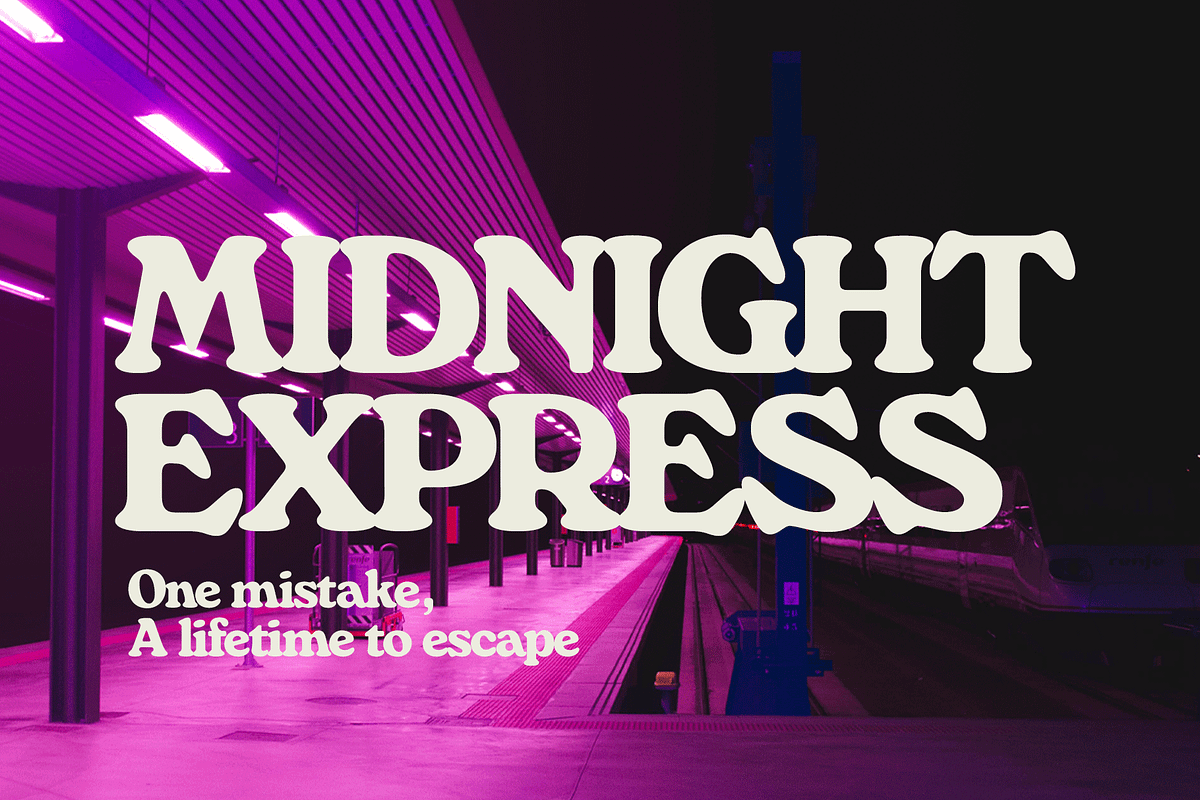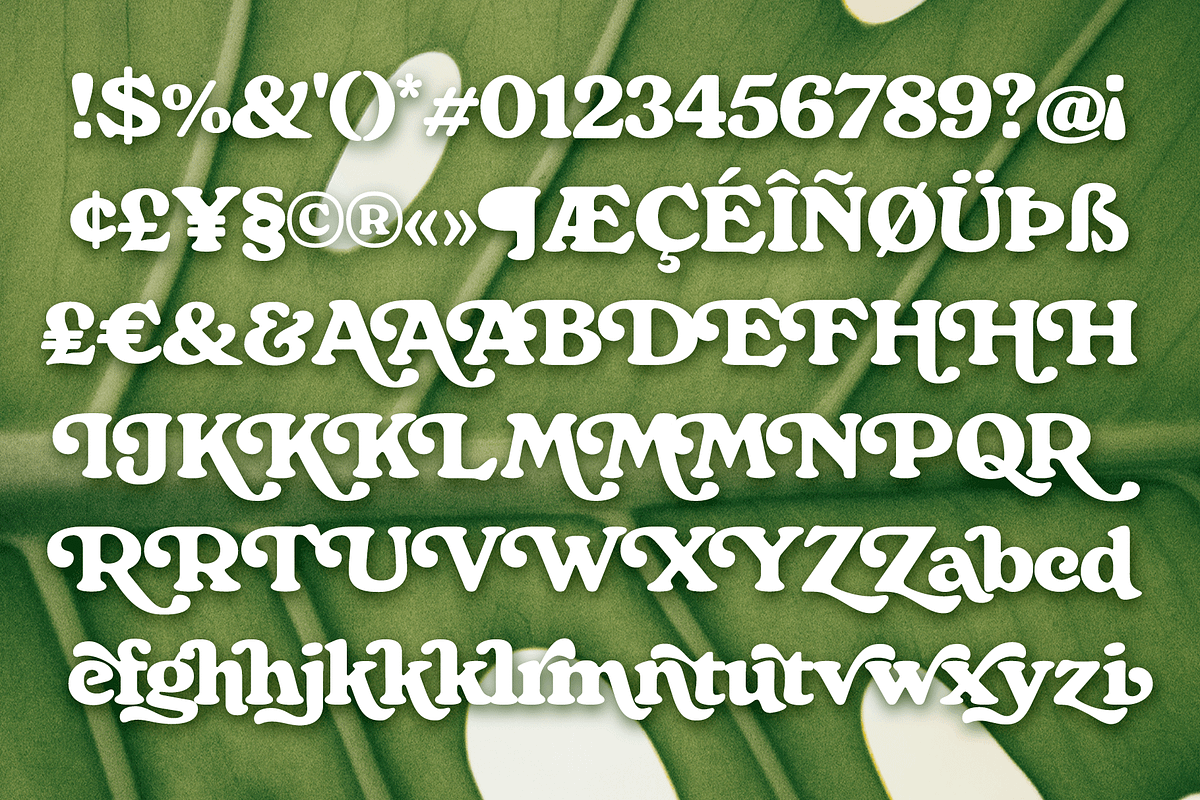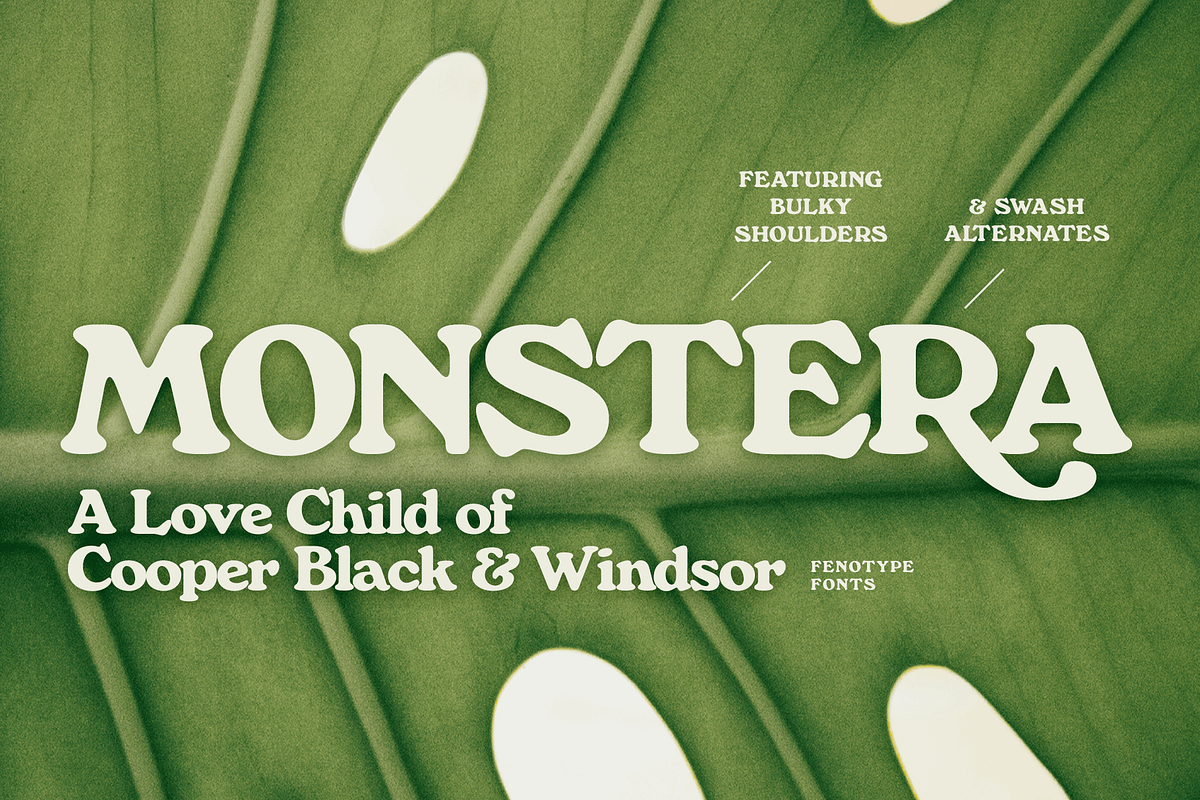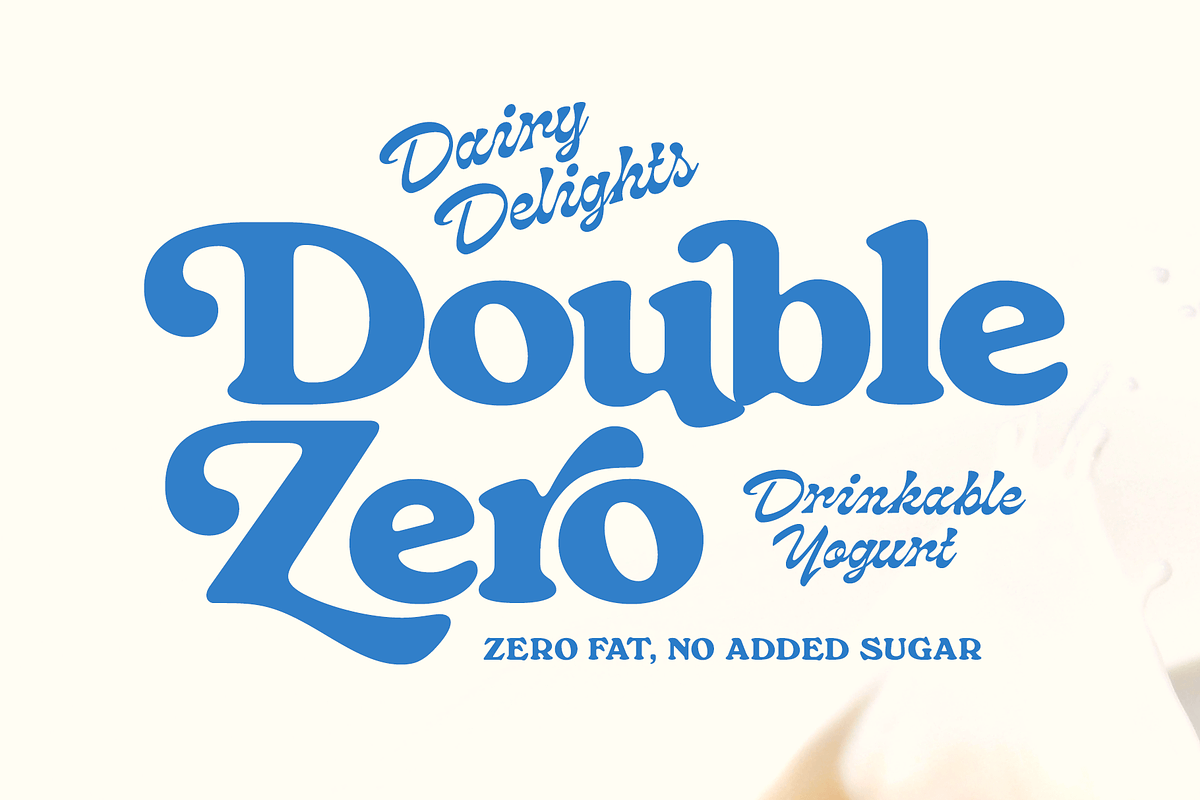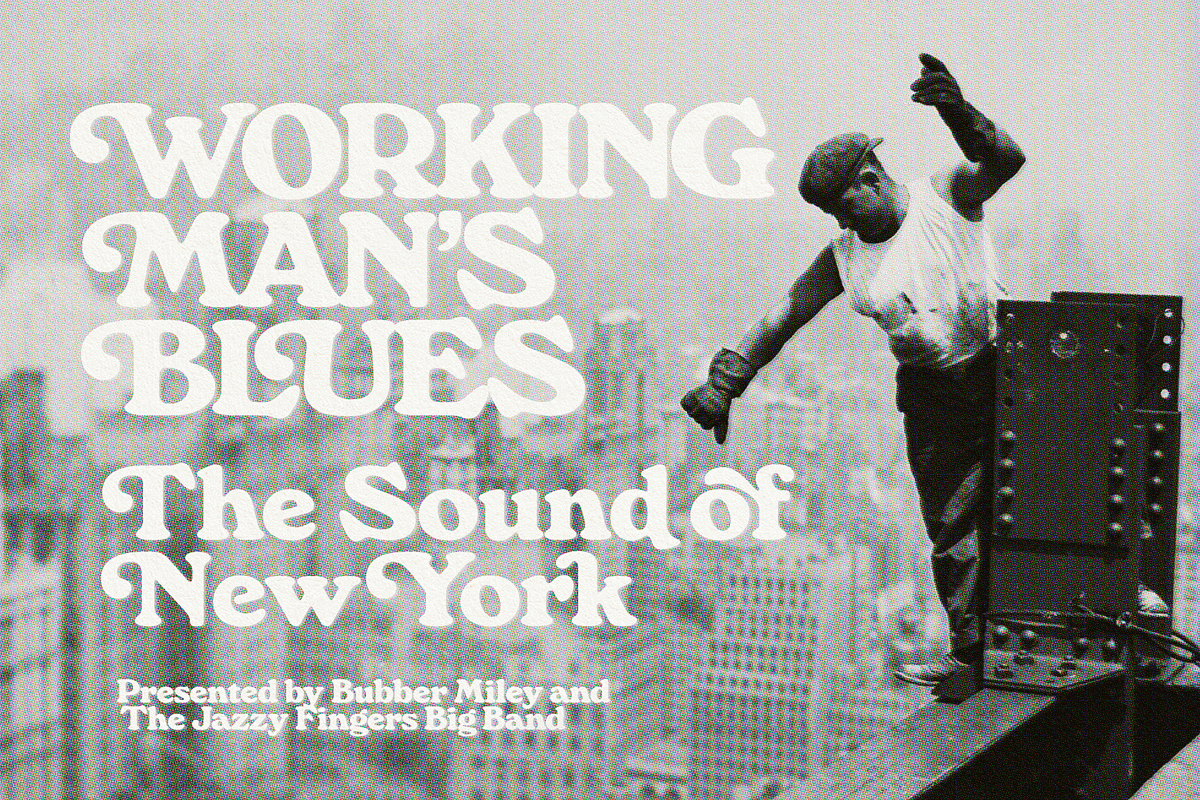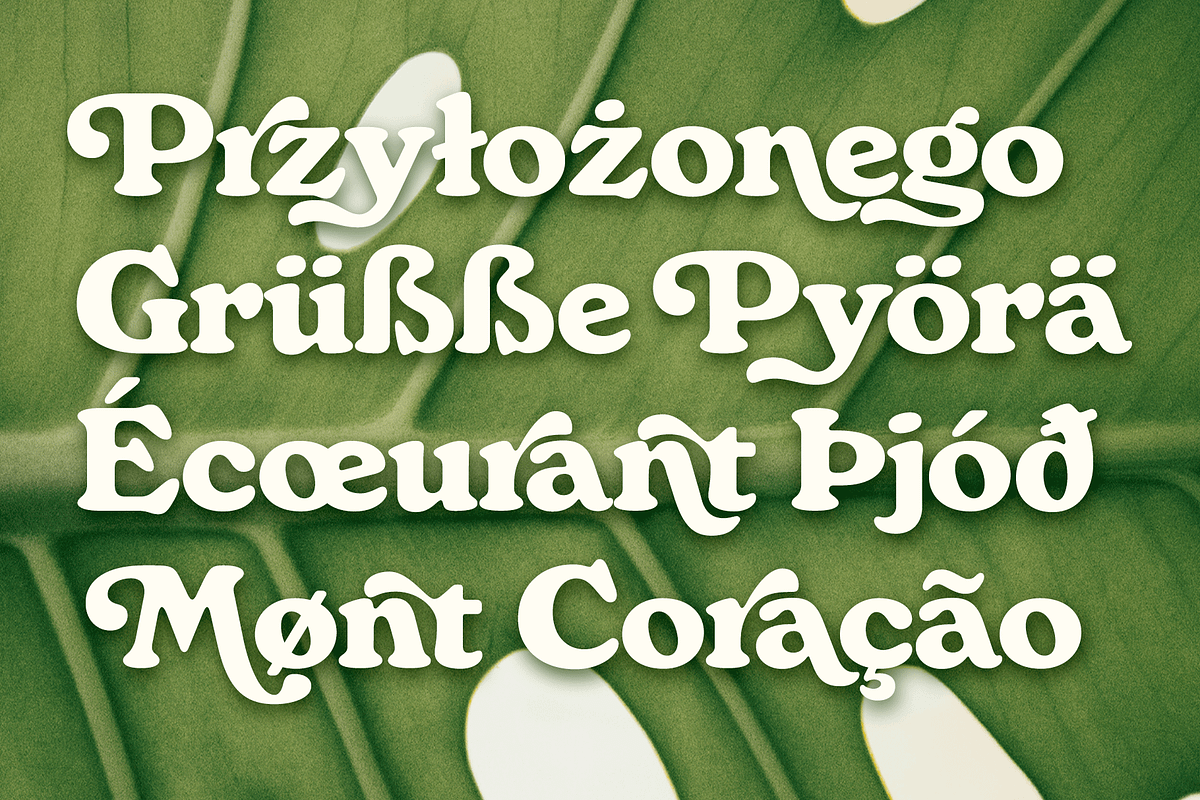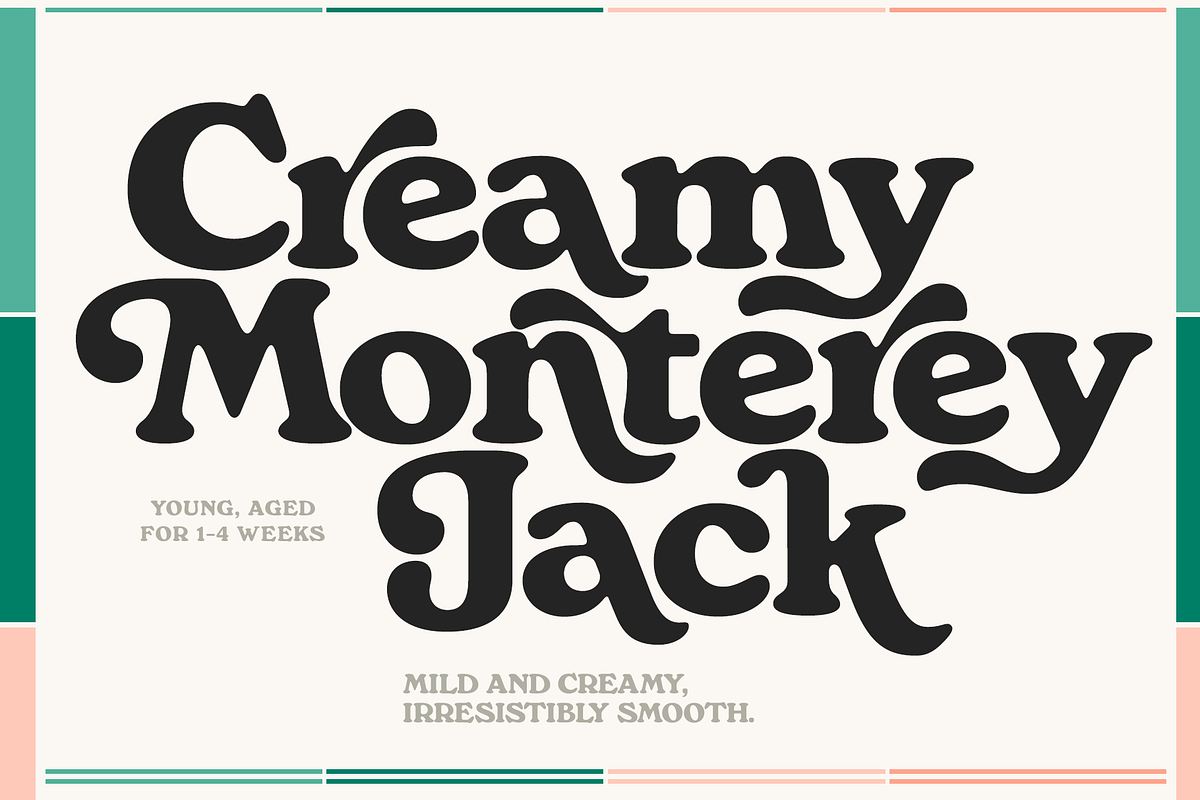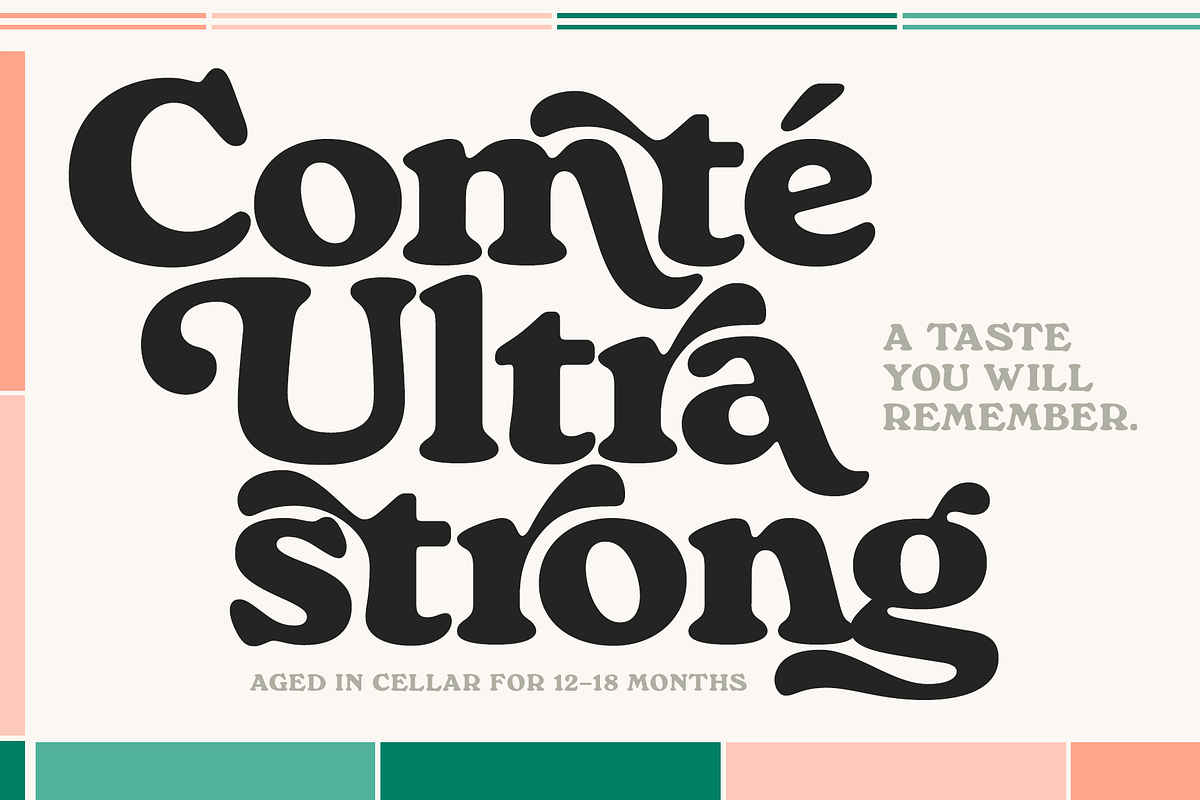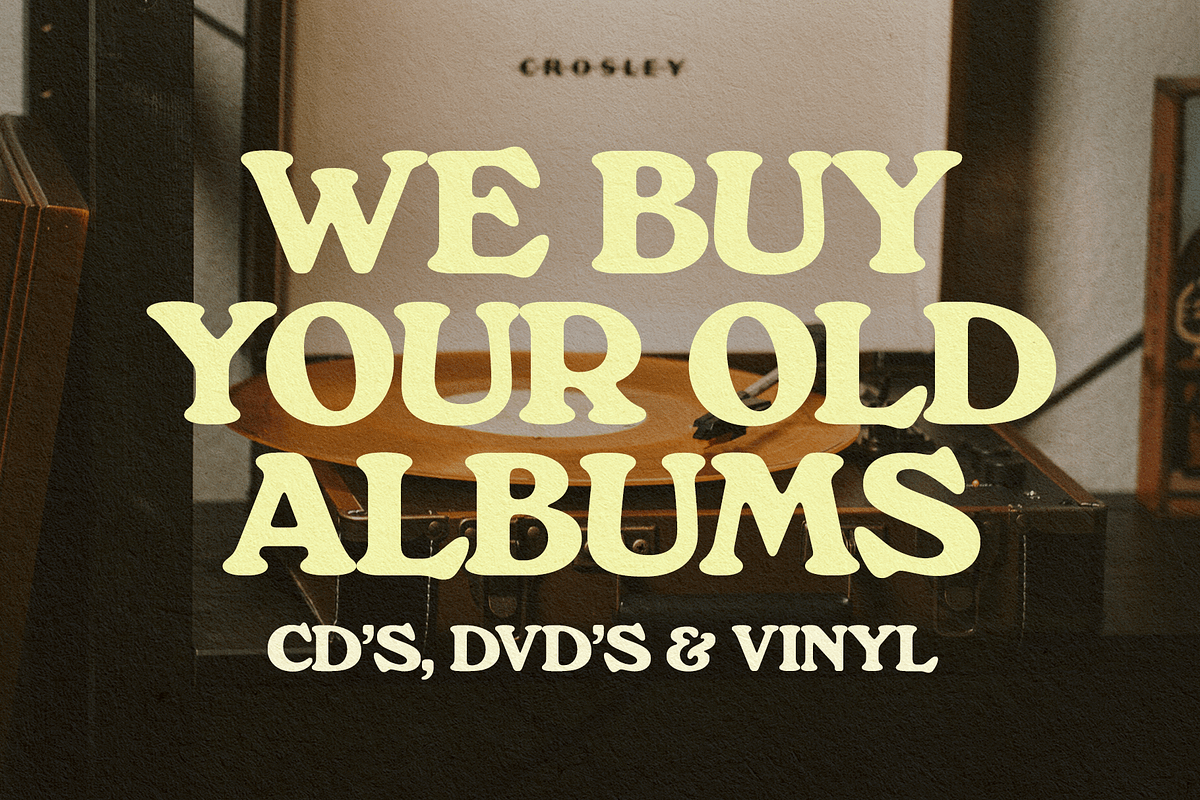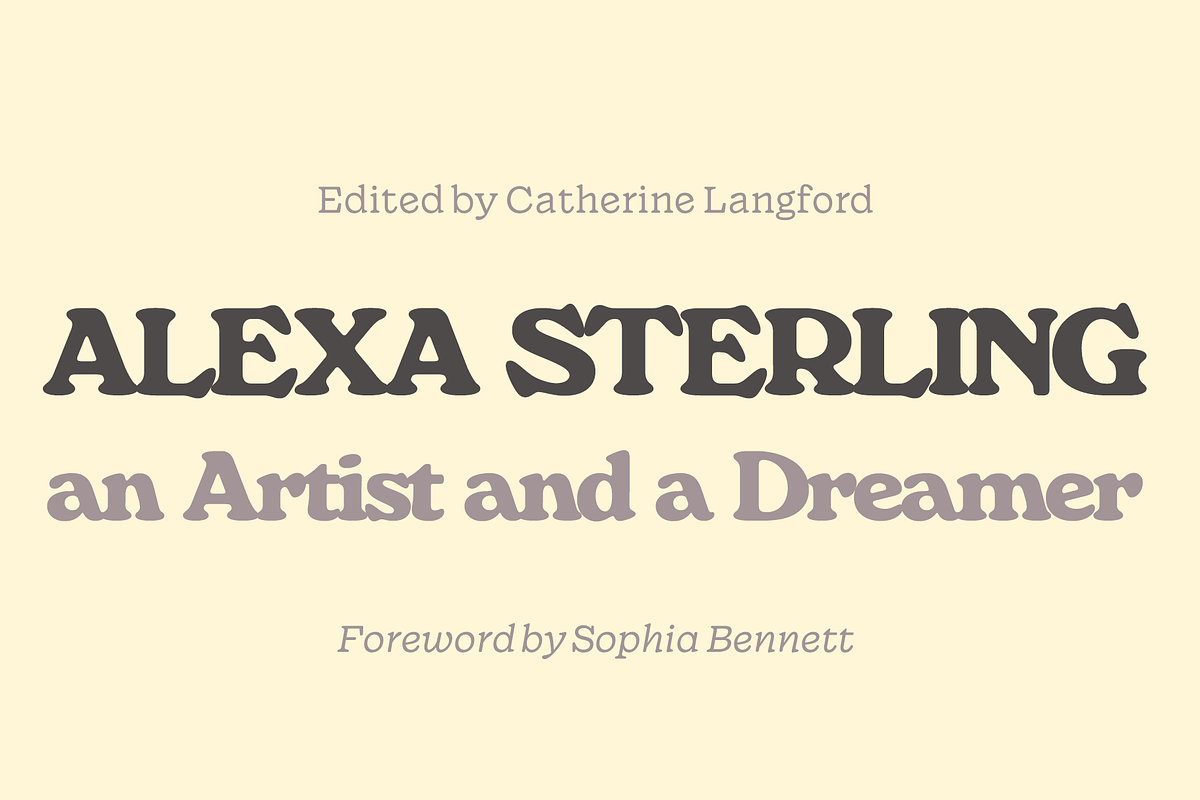
Monstera - Delicious Retro Serif
Monstera Deliciosa is a nostalgic, heavy serif font that blends the best of two iconic typefaces—Cooper Black and Windsor. Drawing its character shapes from Windsor and a soft, inviting feel from Cooper Black, Monstera Deliciosa offers a bold, vintage aesthetic with modern versatility. Complete with Swash Alternates, it’s perfect for adding a playful yet timeless touch to your designs.